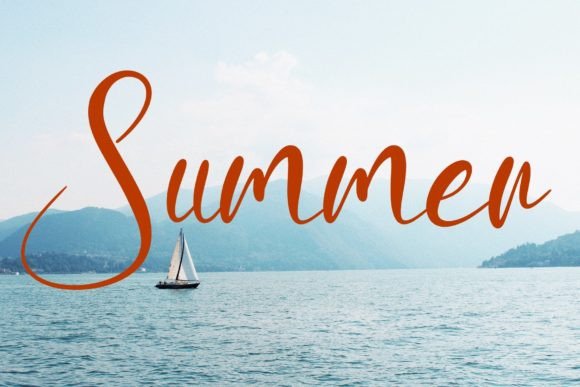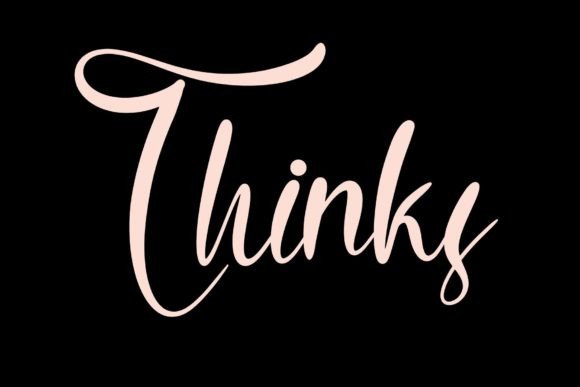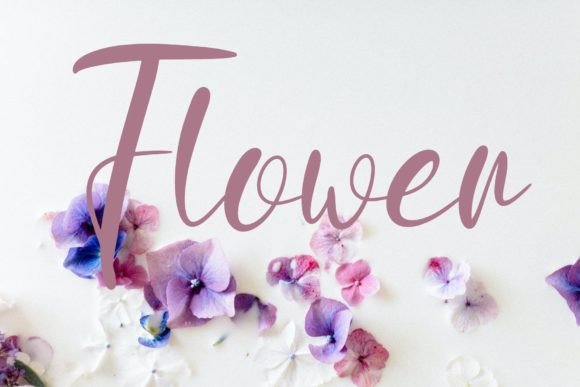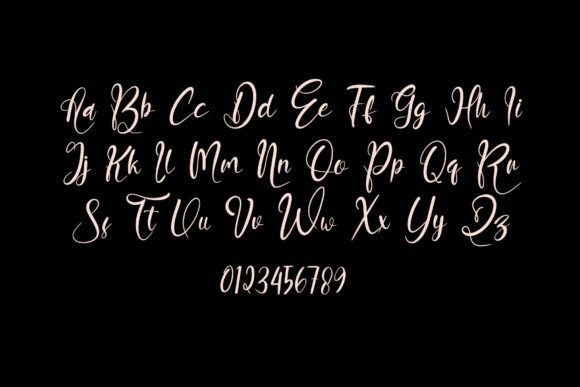
Attack Font
About Attack Font
**Attack** is a stylish and delicate script font that exudes sophistication and elegance. Its clean, thin, and smooth strokes create a refined vibe, making it a standout choice for a wide range of design projects. Whether used for branding, invitations, logos, advertisements, product packaging, or any other design application, **Attack** adds a touch of chic sophistication to your text.
The font’s versatility allows it to seamlessly integrate into various design contexts. Its delicate and graceful appearance makes it ideal for projects that require a subtle and sophisticated touch. Whether used for high-end branding or elegant invitations, **Attack** enhances the overall aesthetic, bringing a sense of refinement and class to your designs.
With its stylish and clean design, **Attack** complements contemporary and minimalist aesthetics, adding a touch of modernity to your projects. Its thin and smooth vibe gives it a timeless appeal, making it suitable for both formal and casual applications. The font’s delicate script style adds a touch of femininity and grace, making it perfect for designs that require a subtle and elegant typography choice.
By incorporating **Attack** into your designs, you elevate them with a sense of style and sophistication. Its clean lines and subtle curves create a visually pleasing text that captures attention and leaves a lasting impression. Whether used for branding materials, invitations, or advertisements, **Attack** adds a touch of elegance, ensuring your designs stand out with a refined and chic vibe.